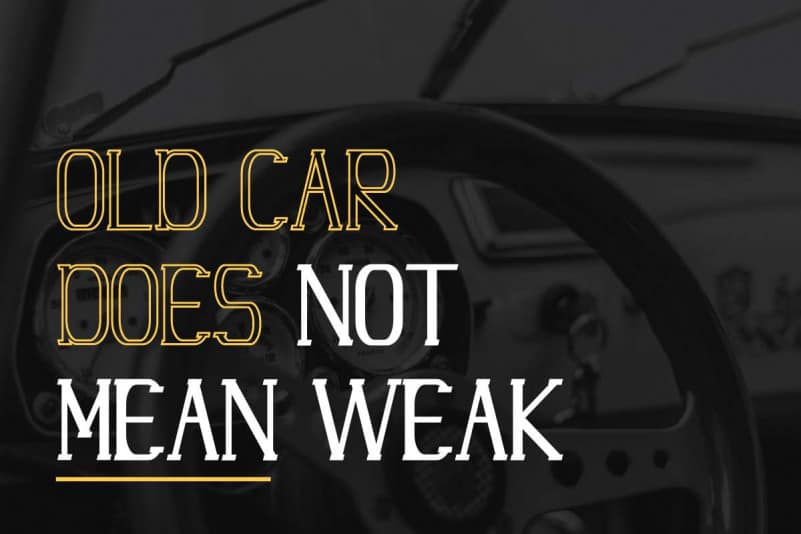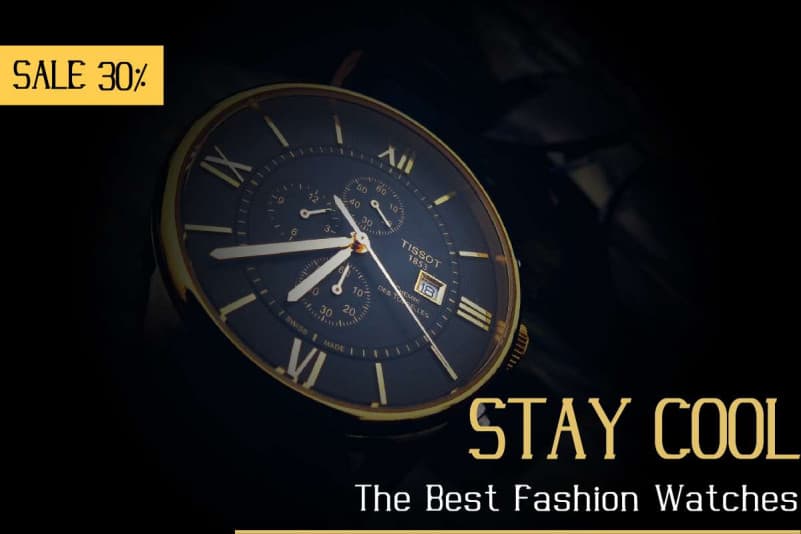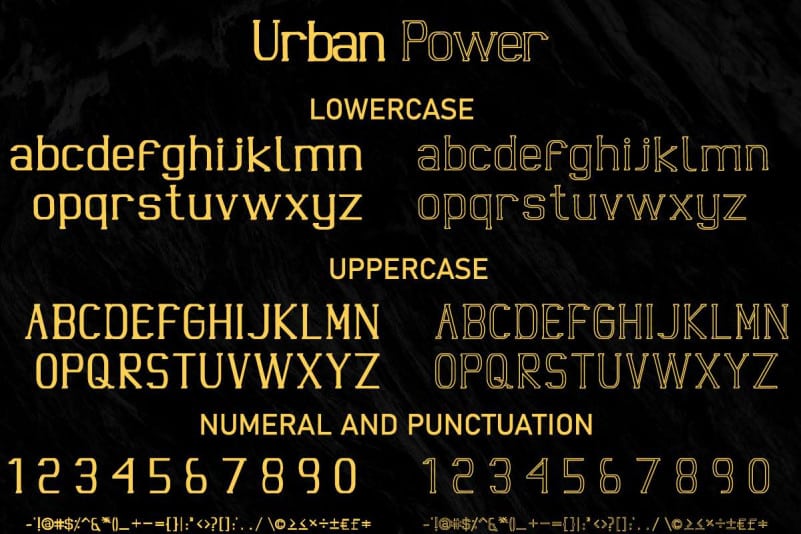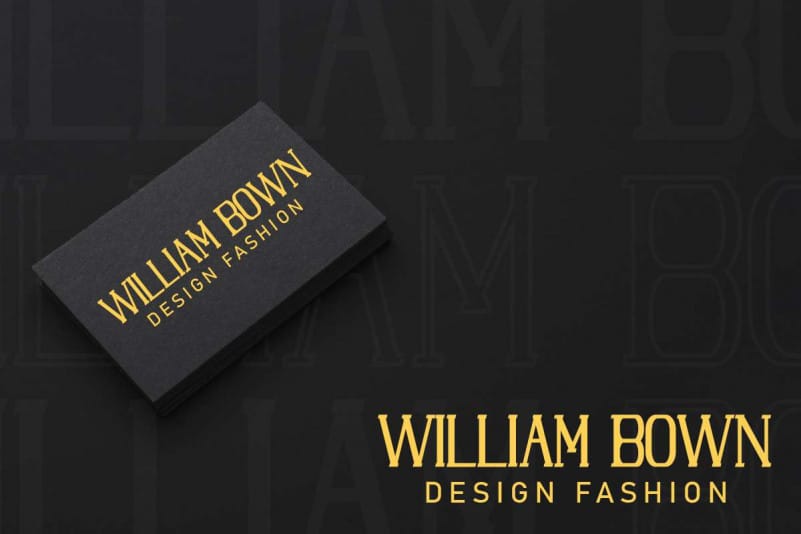
Urban Power Modern Serif Font
Urban Power Modern Serif Font is a Decorative Display Serif font, made here in Indonesia. The artists/designers of this beautiful tyeface is Renata and Sarah Suci.